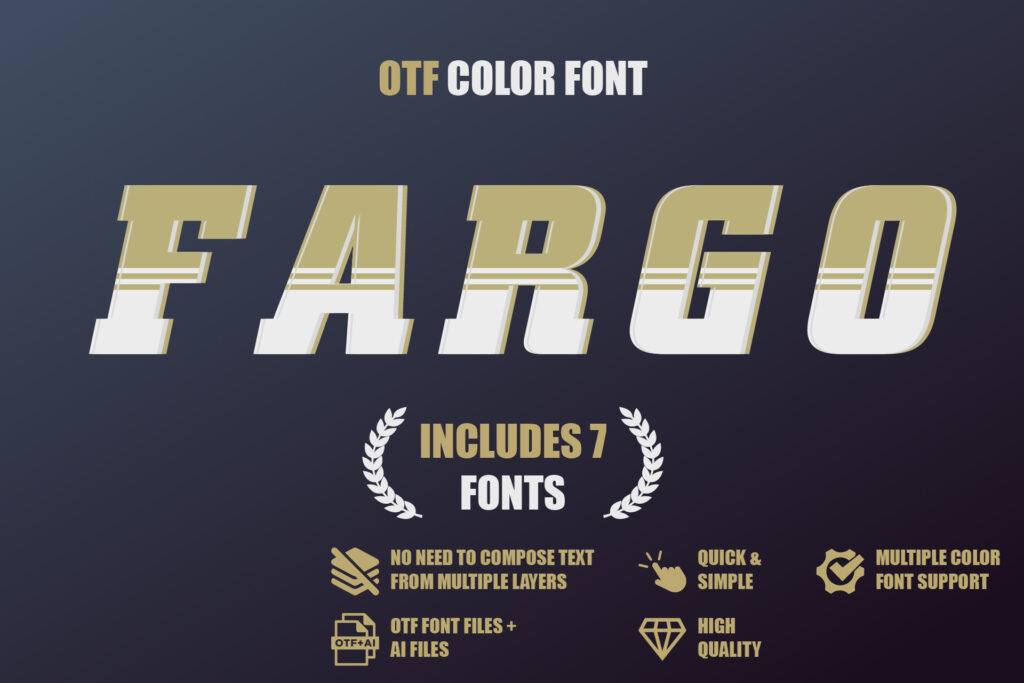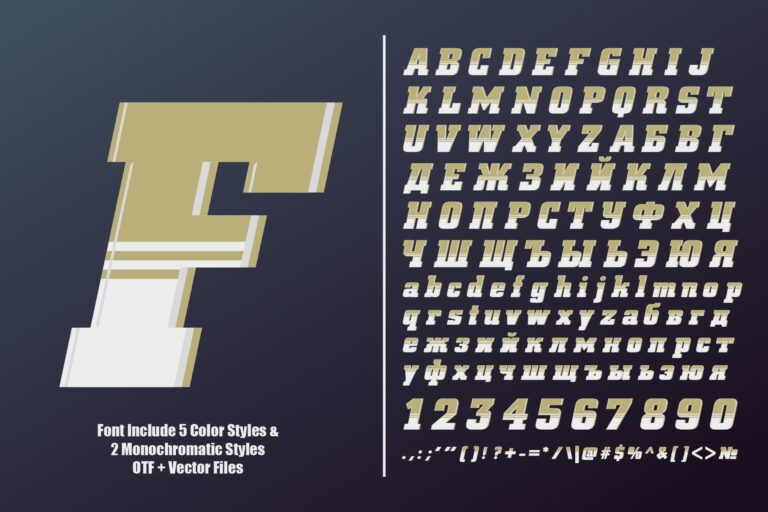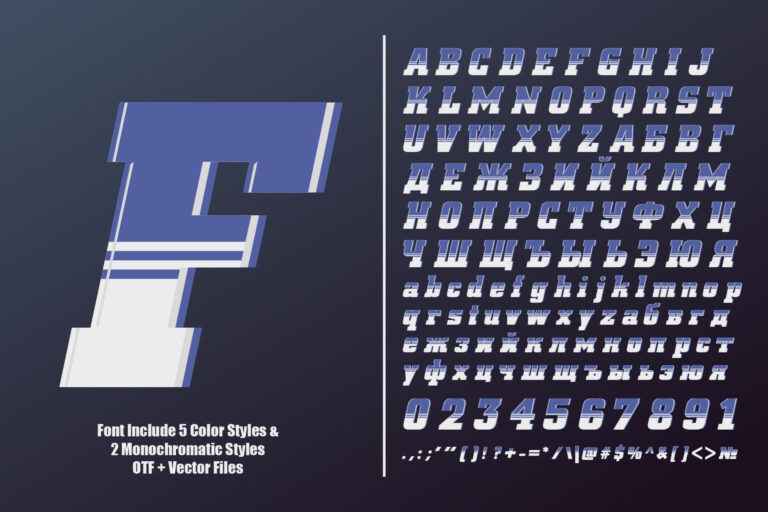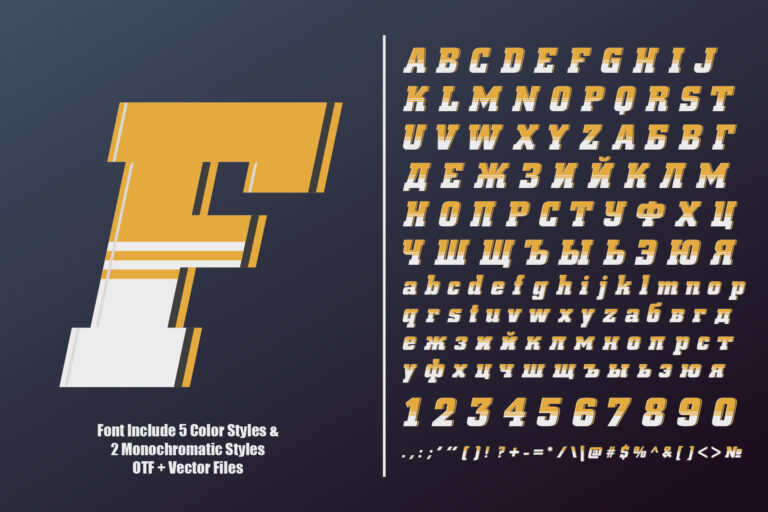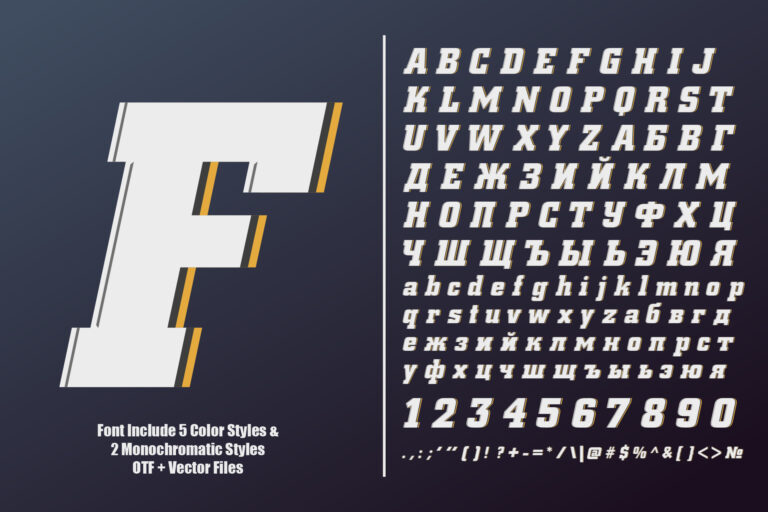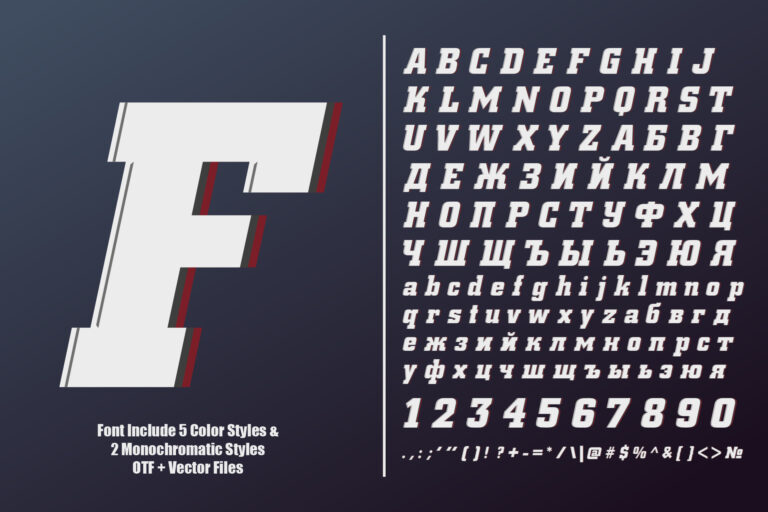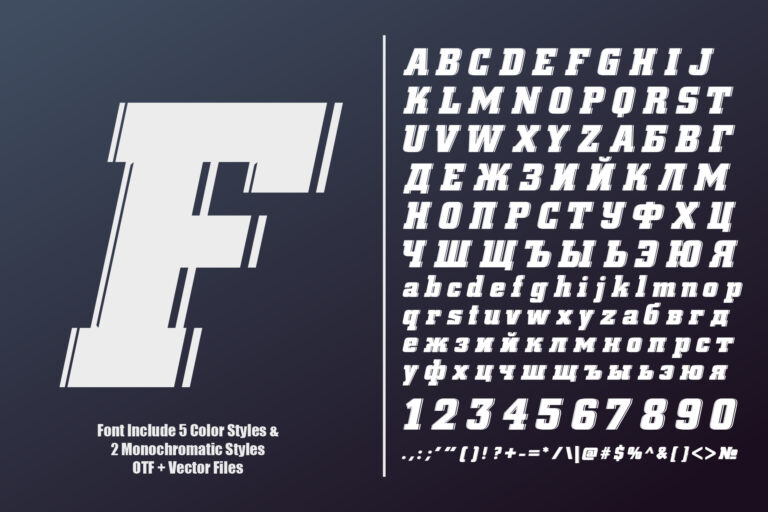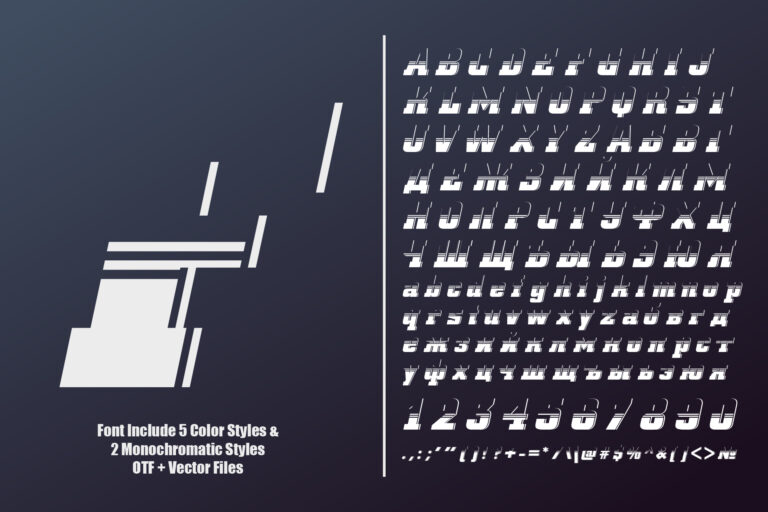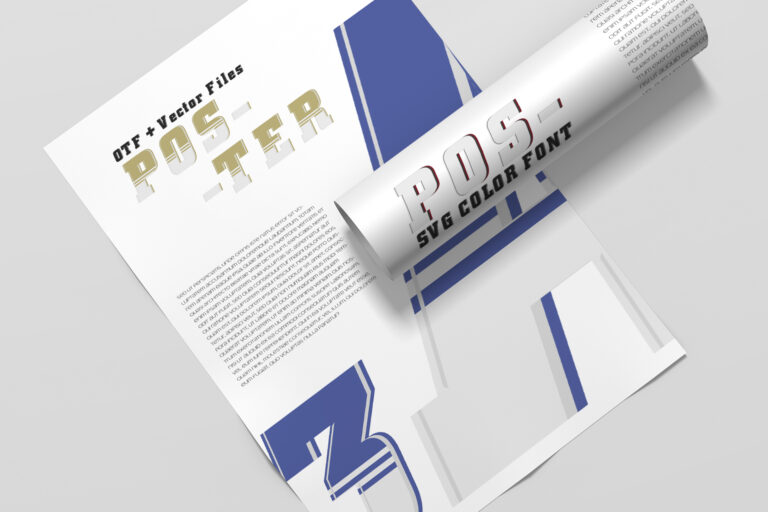
Fargo is a bold and playful OTF color font designed to make a statement. With vibrant multicolor letterforms and a unique handcrafted style, this typeface is perfect for creative projects that demand attention and originality. Ideal for posters, social media graphics, branding, packaging, and more, Fargo adds a fun and dynamic touch to your typography while maintaining excellent readability. Compatible with design software supporting OpenType-SVG fonts, including Adobe Photoshop, Illustrator, and InDesign.
✦ Multicolor design
✦ 7 Font Styles
✦ Uppercase letters
✦ Numbers and punctuation
✨ Perfect For:
Posters • Social media graphics • Branding • Packaging • Headlines • Creative display projects
Crafted for designers and creatives who want bold, colorful, and distinctive typography to enhance their work.